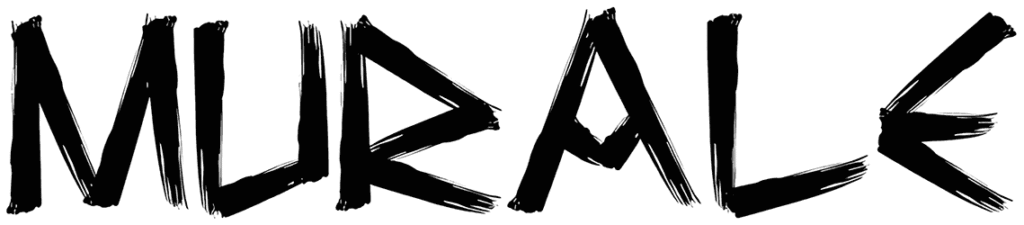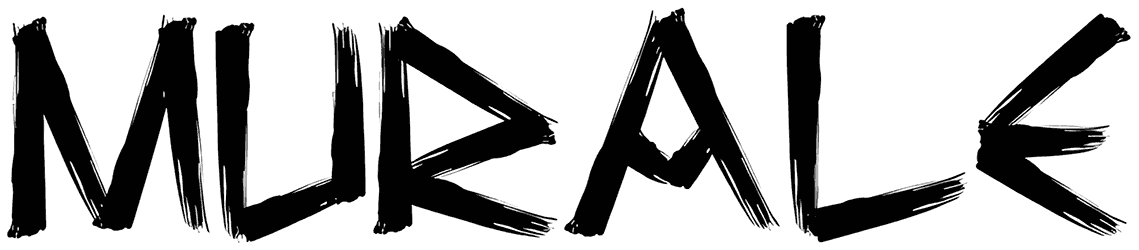
Murale Font
What do you think about a cool and artistic style for your novel’s modern layout? With an untidy mood, this brush font would be a great item that can make it happen.
Murale font consists of realistic hand-painted letters with distinct forms. It doesn’t offer lowercase letters, but with two sets of capitals, this ninja font will be a salient display for your innovative designs, like posters, apparel, packaging, covers, and so on.